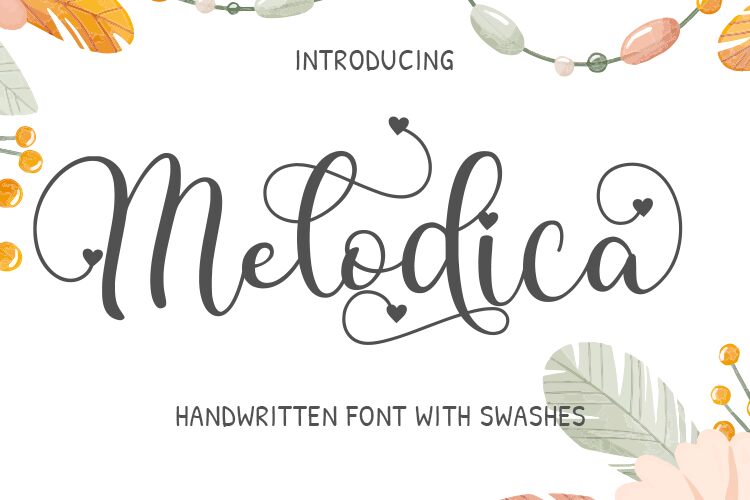
Melodica, a captivating calligraphy font by Bearytype. With its semi-light weight, this font exudes elegance and grace. Ideal for wedding invitations, luxurious branding, and feminine blog designs, Melodica adds a touch of sophistication to any project. Its flowing strokes and graceful curves create a harmonious balance that is both modern and timeless. Perfect for creating impactful logos, social media graphics, and artistic quotes that demand attention. Let Melodica's lyrical charm elevate your designs to new heights of beauty and refinement.
Melodica